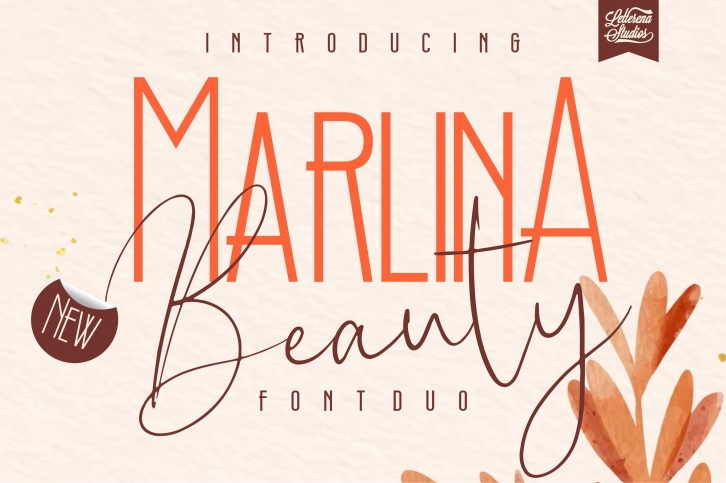
Marlina Beauty is a beautiful font that was designed by Letterena Studios. It's a great choice for designers and creatives who need such a font. It was released on October 24, 2020 and the file size is 6.79 MB. Marlina Beauty may give a more youthful, expressive and casual look to your project. It is a very beautiful, refined, elegant, and high-quality font.